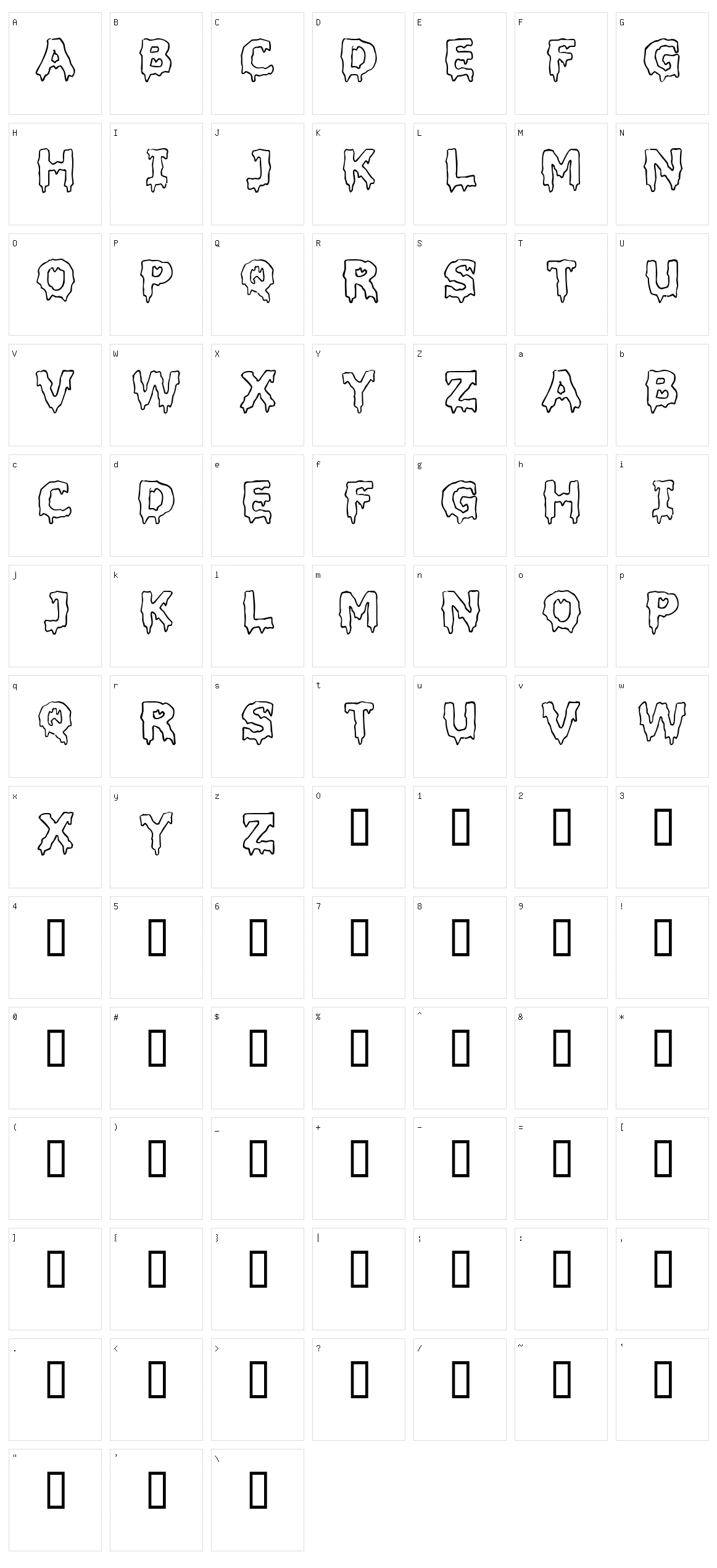
The free font Liquidism is carefully designed by Pizzadude, showcasing a thoughtful balance of creativity and usability and falls under the Horror font style. When you download the ZIP file, it contains only 41.44 KB of font files, making it lightweight and quick to download. Please review the license details below to understand permitted usage and distribution rights. If license information is not available, we recommend using this font for personal projects only or contacting the author directly for commercial usage permissions.